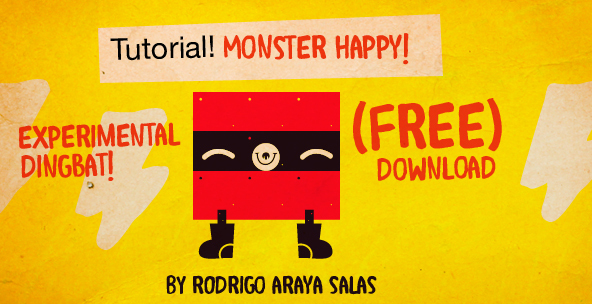
Monster Happy is a playful and whimsical dingbat font designed by Rodrigo Araya Salas. Its unique characters, ranging from quirky expressions to abstract shapes, instantly captivate the eye. The font's black-and-white aesthetic exudes a bold, striking presence, lending itself well to a variety of design applications. From playful product branding to eye-catching editorial layouts, "Monster Happy" offers designers a versatile and dynamic typographic tool to bring a touch of personality and character to their creations.
This font's distinctive style and diverse symbol set make it particularly well-suited for use in children's media, packaging, and invitation design. Its abstract shapes and expressive icons can also be integrated into visual identities, patterns, and decorative elements to infuse a sense of joy and playfulness.
Monster is a family of 4 fonts. The first font is Monster Happy, which is a free Halloween-themed font. The second, third, and fourth fonts are Mexican Monster and Angry Monster, which are the latest additions to the family.
These fonts are not just for decorative purposes; they are also designed to serve as a unique gaming interface. The letters (Q, W, E, R, T, Y, U, I, O, P) represent the eyes, the letters (A, S, D, F, G, H, J, K, L) represent the nose and mouth, and the letters (Z, X, C, V, B, N, M) represent the feet of the monster characters.